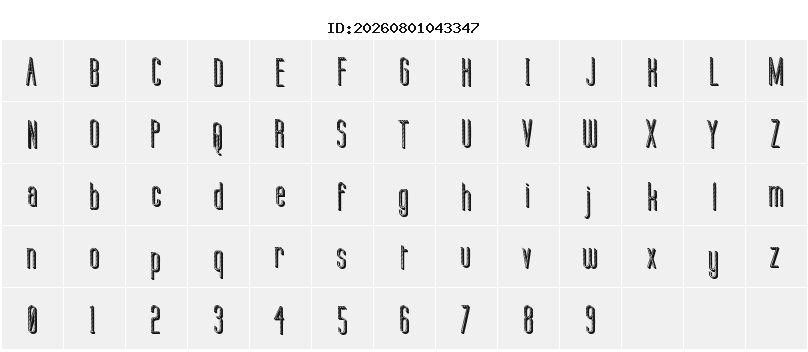
Labtop Candy Extra Preview
• Font Name: Labtop Candy Extra
• Full Font Name: Labtop Candy Extra
About Labtop Candy Extra.ttf
Labtop Candy Extra.ttf is a modern, elegant sans-serif font designed for ultimate readability and visual harmony. Perfect for branding, headlines, web design, and print materials.